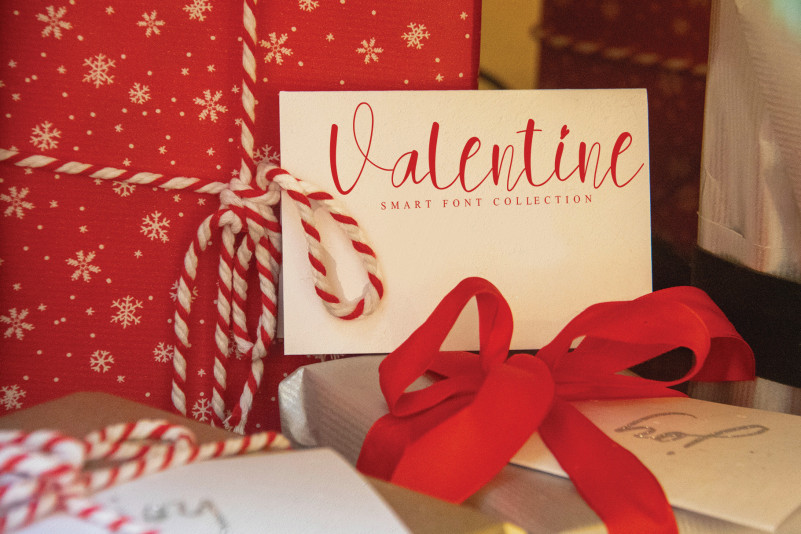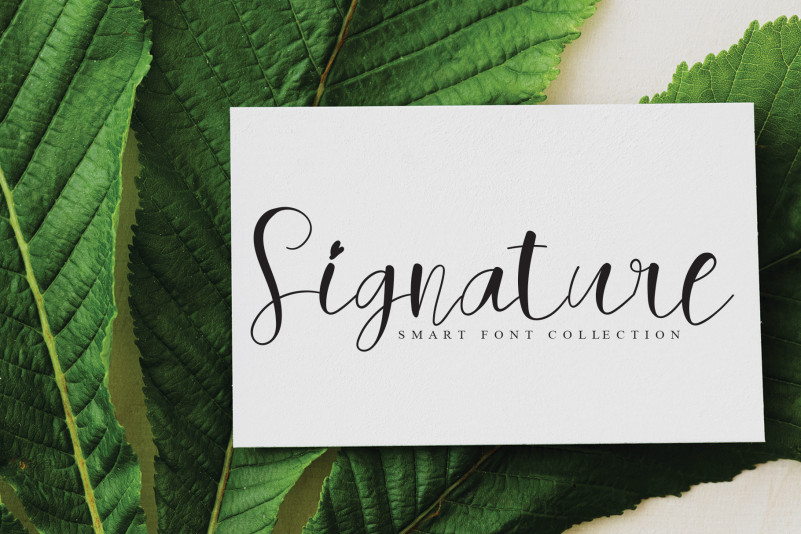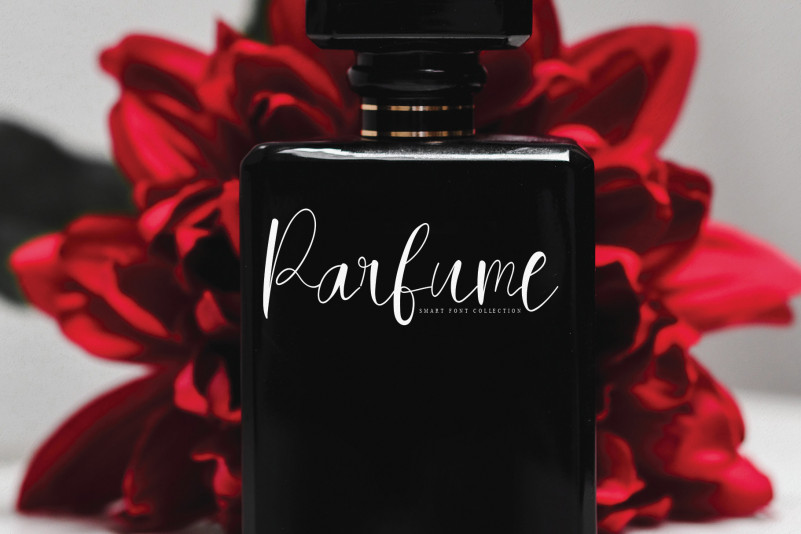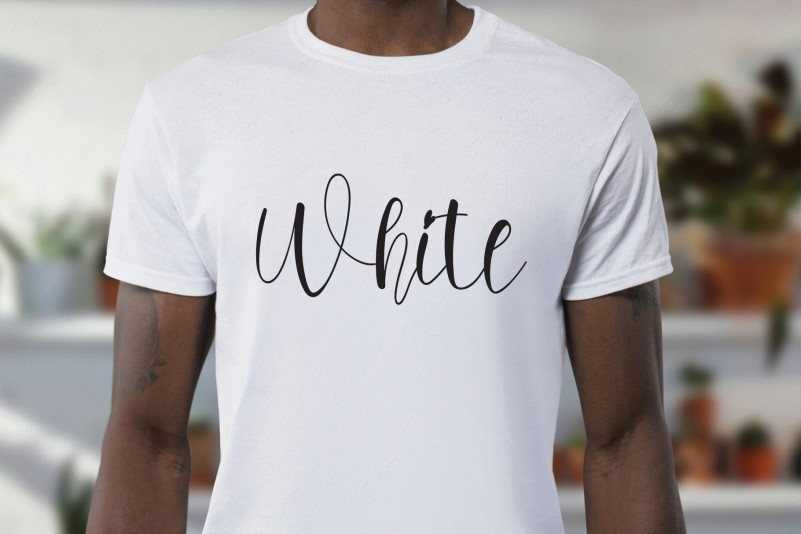
Chocolatos Font
Chocolatos Script Font
This is a slim and sleek handwritten font. With its cursive style and nicely rounded characters, this typeface is the best choice for delicate projects such as wedding invitations, birthday cards, letters, or anything alike!
the latest style letters are perfect for wall displays, wedding invitations, social media post logos, advertisements, product packaging, product designs, labels, photography, watermarks, invitations, stationery, and any project that requires taste handwriting.